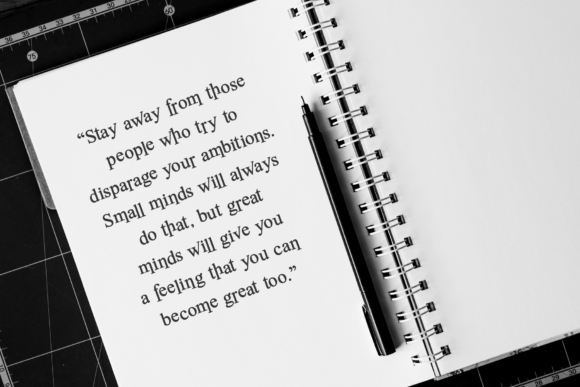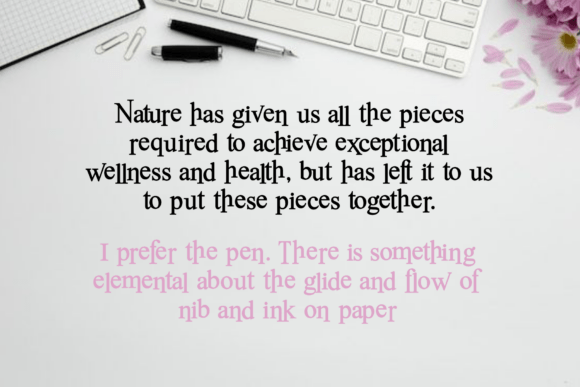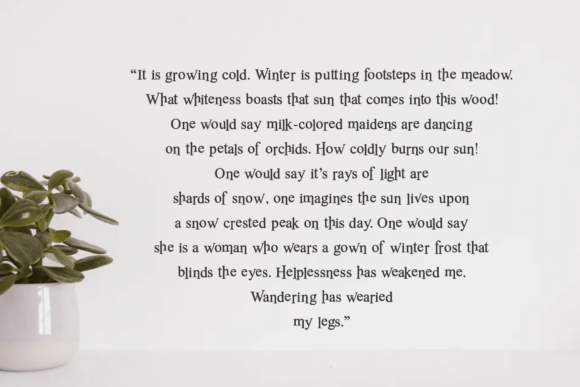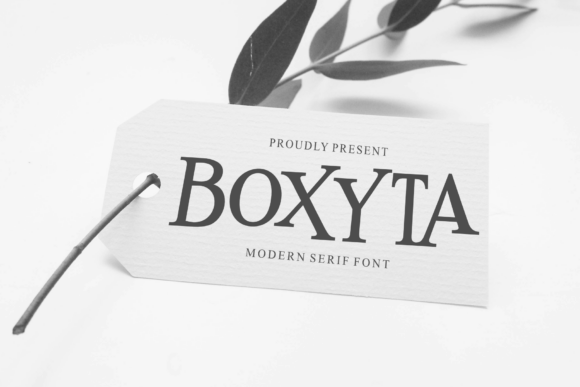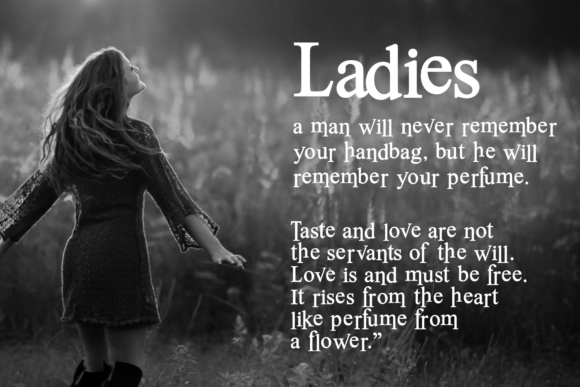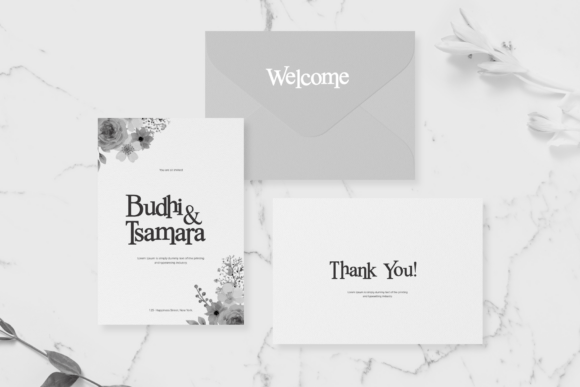
Introduction to Boxyta Font
Have you ever stared at a blank canvas, waiting for the perfect font to spark your creative project? For designers, finding the right typography can be the difference between a good design and a great one. It’s that elusive moment when every element falls into place, and your vision comes to life. For many, it’s the Boxyta Font that makes the magic happen.
Boxyta Font is more than just a typeface – it’s a design resource that brings sophistication, luxury, and professionalism to any project. Its unique blend of traditional serif elegance and modern design elements makes it a high-quality choice for logos, fashion magazines, and upscale branding. Whether you’re working on a creative project or simply need a font to elevate your design, Boxyta Font is an excellent choice. With its transparent background and free download options, you can experiment with this versatile font without any limitations.
As a valuable addition to any designer’s toolkit, Boxyta Font is sure to make a lasting impression on your audience. So, what are you waiting for? Let the elegance of Boxyta Font inspire your next creative project and take your designs to the next level.
Key Features of Boxyta Font
- High-quality, professional font suitable for various creative projects, including graphic design, digital art, and print media.
- Features a transparent background, allowing designers to easily combine it with other design elements and achieve a seamless look.
- Designed as a versatile design resource, the Boxyta Font is suitable for use in various contexts, from corporate branding to personal projects.
- Designed with a high resolution of 300 DPI, ensuring that the font remains crisp and clear even when enlarged or used in high-resolution designs.
- Unique characteristics include its geometric shape and bold, modern aesthetic, making it an excellent choice for designers looking for a distinctive font.
Honest Review: Boxyta Font
I recently had the chance to dive into the world of typography with the Boxyta Font, and I must say, it’s been an interesting experience. The font is perfect for creative projects that require a bold, modern look.
- ✨ The font features a transparent background, allowing for seamless integration with any design element.
- ✨ It’s a great design resource for those looking to add a touch of sophistication to their work.
- ⚠️ The font may not be suitable for projects that require a high level of subtlety, as it can be quite bold and overpowering.
- ⚠️ Some users may find the font’s structure to be a bit too rigid, limiting its versatility.
Overall, I’d say the Boxyta Font is a solid addition to any designer’s toolkit. It’s high quality and can add a unique touch to any creative project. Just be aware of its limitations and use it accordingly.
Using Boxyta Font in PowerPoint/Word
Boxyta Font is also compatible with Microsoft Office tools like PowerPoint and Word. Simply select the font from the font library and customize it to fit your design needs. This font is perfect for creating professional-looking presentations and documents.
Tips for Getting the Most Out of Boxyta Font
To get the most out of the Boxyta Font, experiment with different styles, sizes, and colors. You can also use it in combination with other design elements to create a unique look.
Common Use Cases for Boxyta Font
The Boxyta Font is ideal for various design projects, including logos, business cards, and social media graphics. Its transparent background feature makes it perfect for creating overlays and composites.